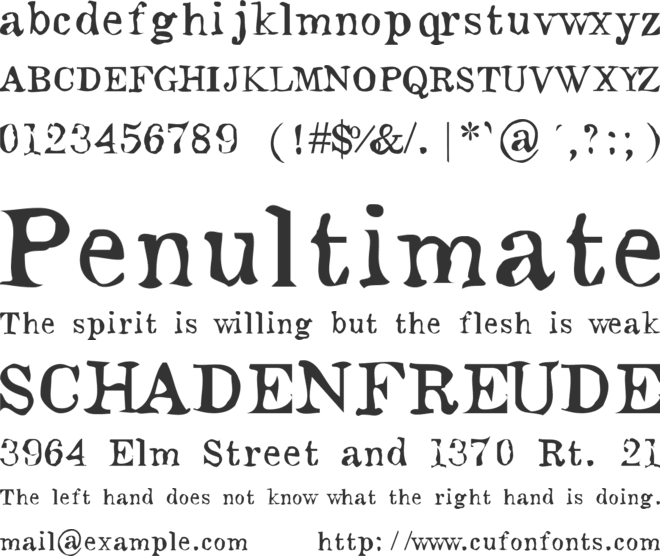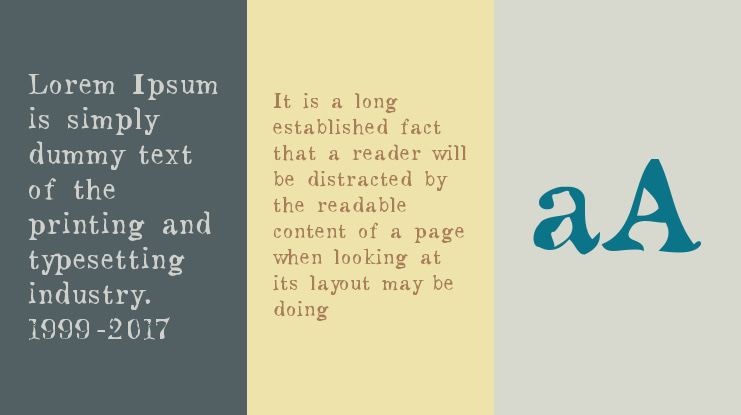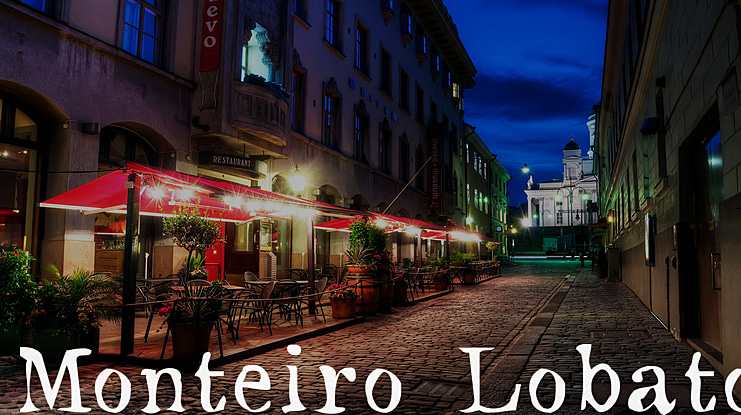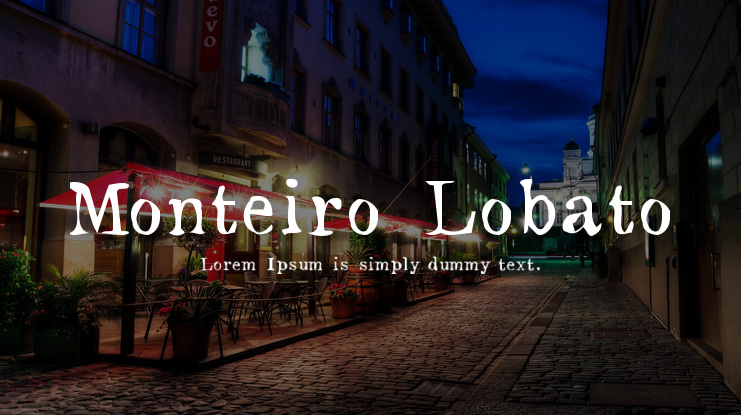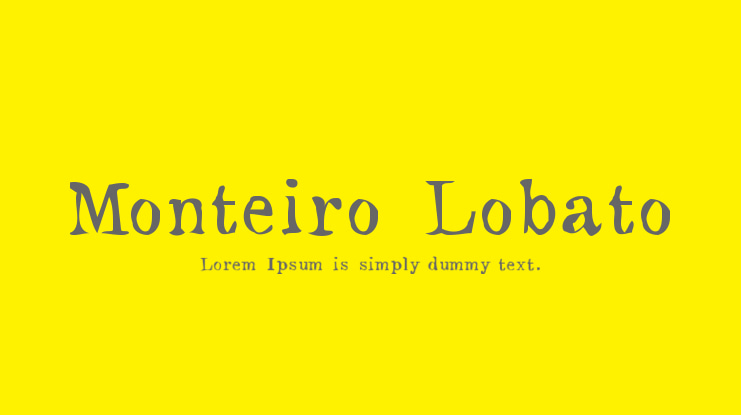
Monteiro Lobato Font
Daniel Poeira
Monteiro Lobato was a brazilian writer, intellectual and politic. He created a series of books called "O Sítio do Pica-Pau Amarelo" that became a brazilian classic for kids. Everybody knows it and its characters. This font has been created based on the original printing of the first edition of these books.